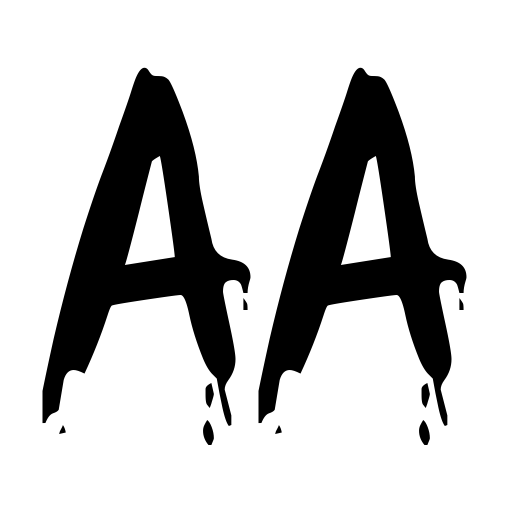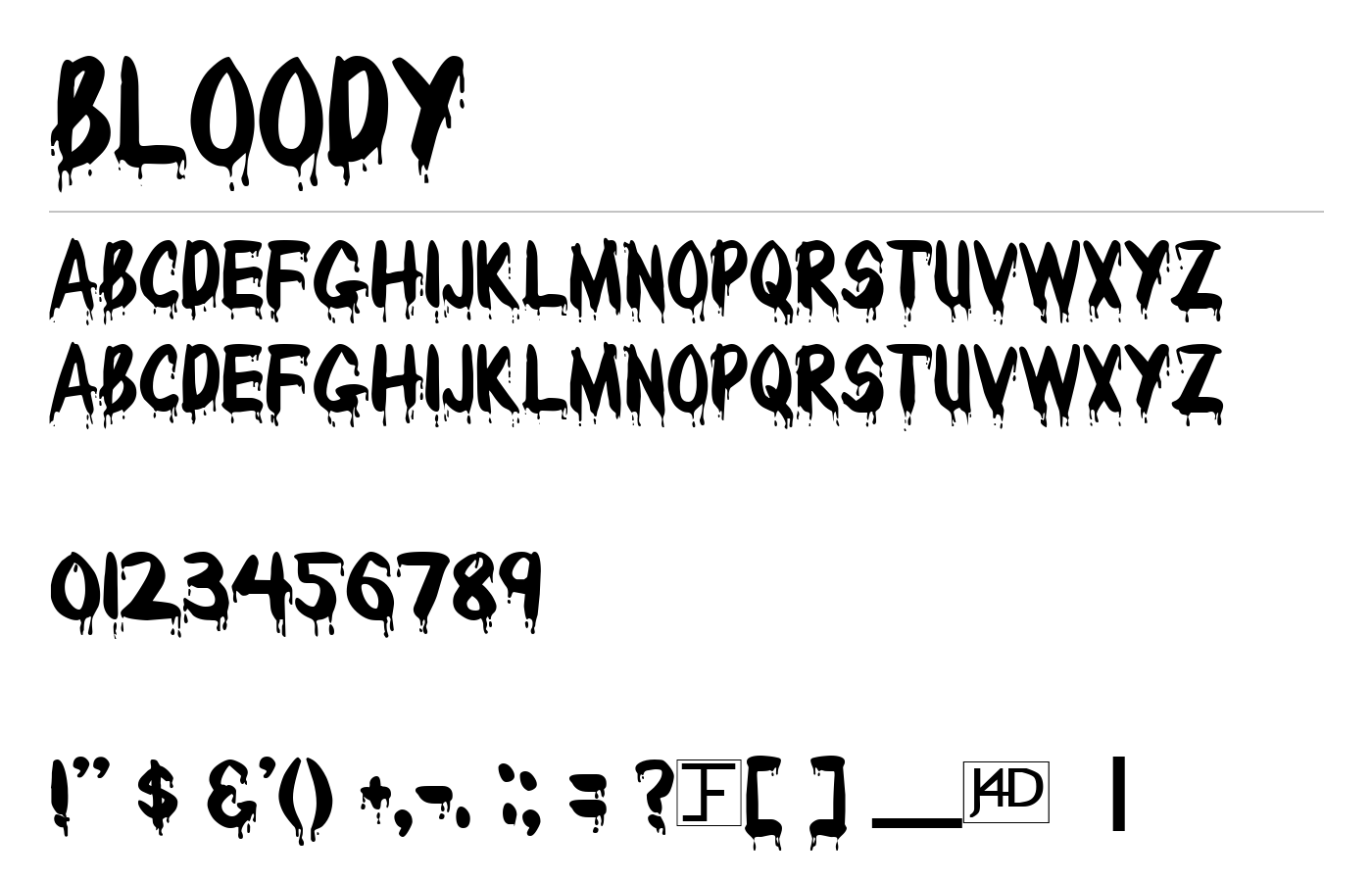
Bloody Font is a bold, dripping display typeface with a spooky, horror-inspired style that resembles fresh, flowing blood. Its irregular, hand-painted letterforms and strong, heavy strokes create a striking and dramatic look, perfect for Halloween-themed designs, posters, and branding that need a chilling, eye-catching effect. This font excels in headlines and decorative uses where a dark, eerie atmosphere is desired.
Bloody Font
About Bloody Font